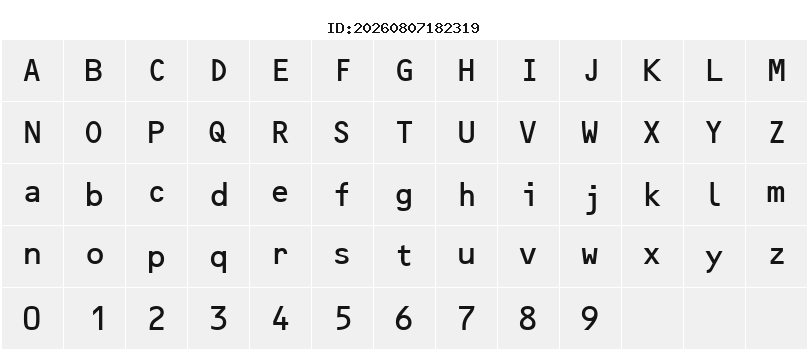
About OCR2SSi.ttf
OCR2SSi.ttf is a modern, elegant sans-serif font designed for ultimate readability and visual harmony. Perfect for branding, headlines, web design, and print materials.